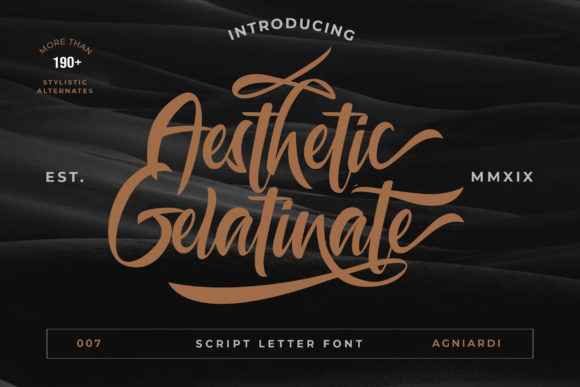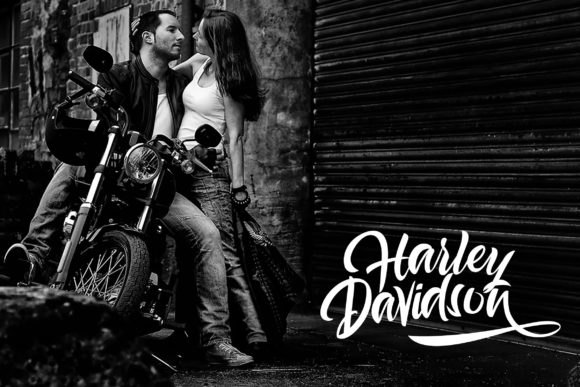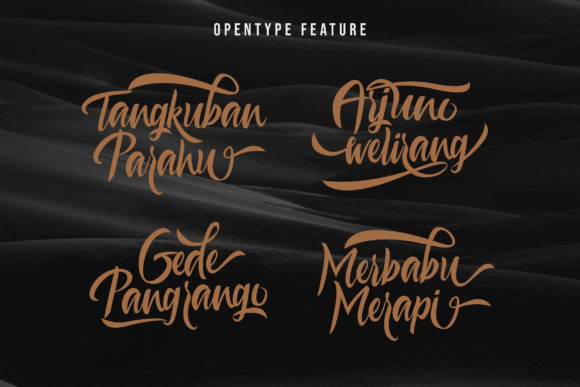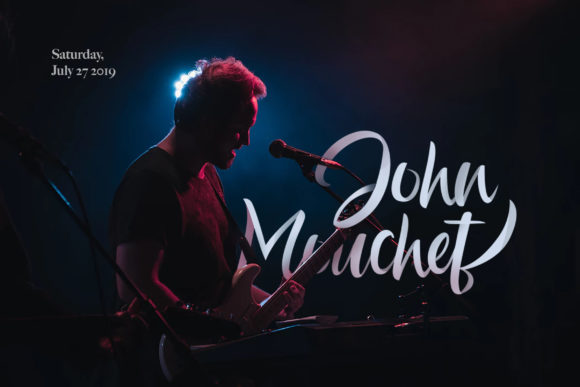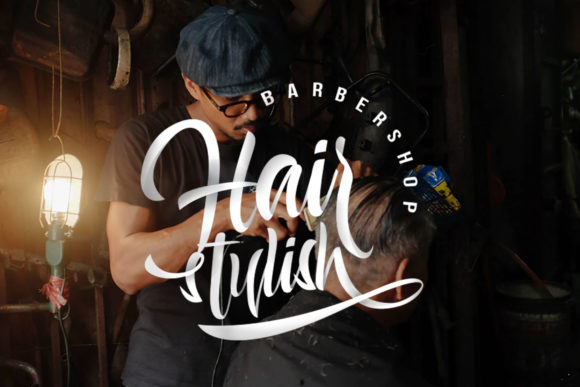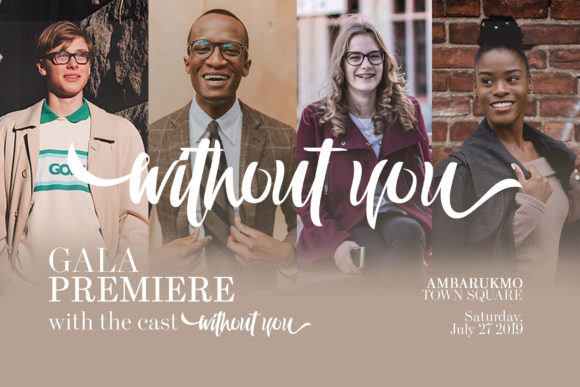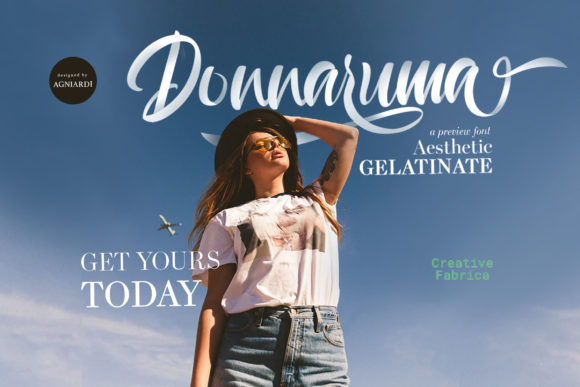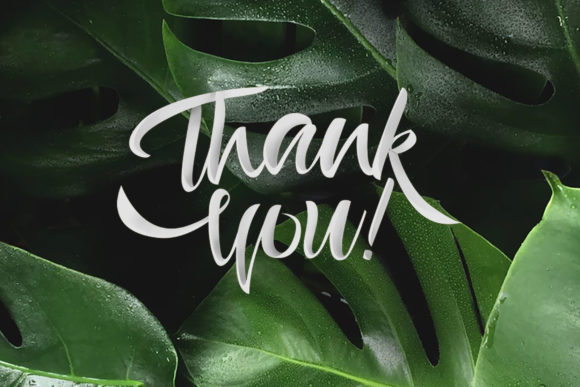
Aesthetic Gelatinate Font
About Aesthetic Gelatinate Font
Aesthetic Gelatinate is a fun and dynamic handwritten font with a cool twist. Get inspired by its contemporary boldness.